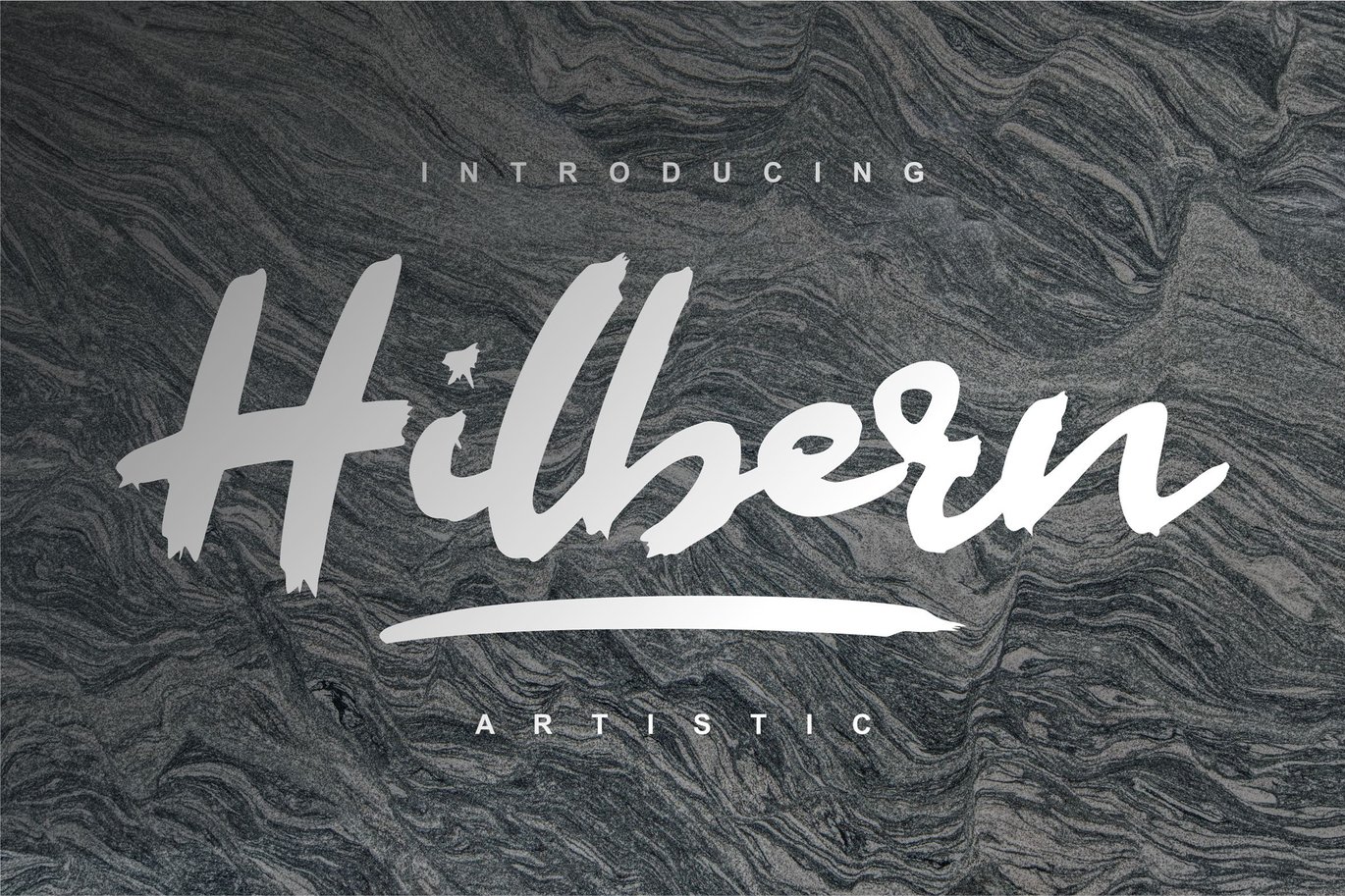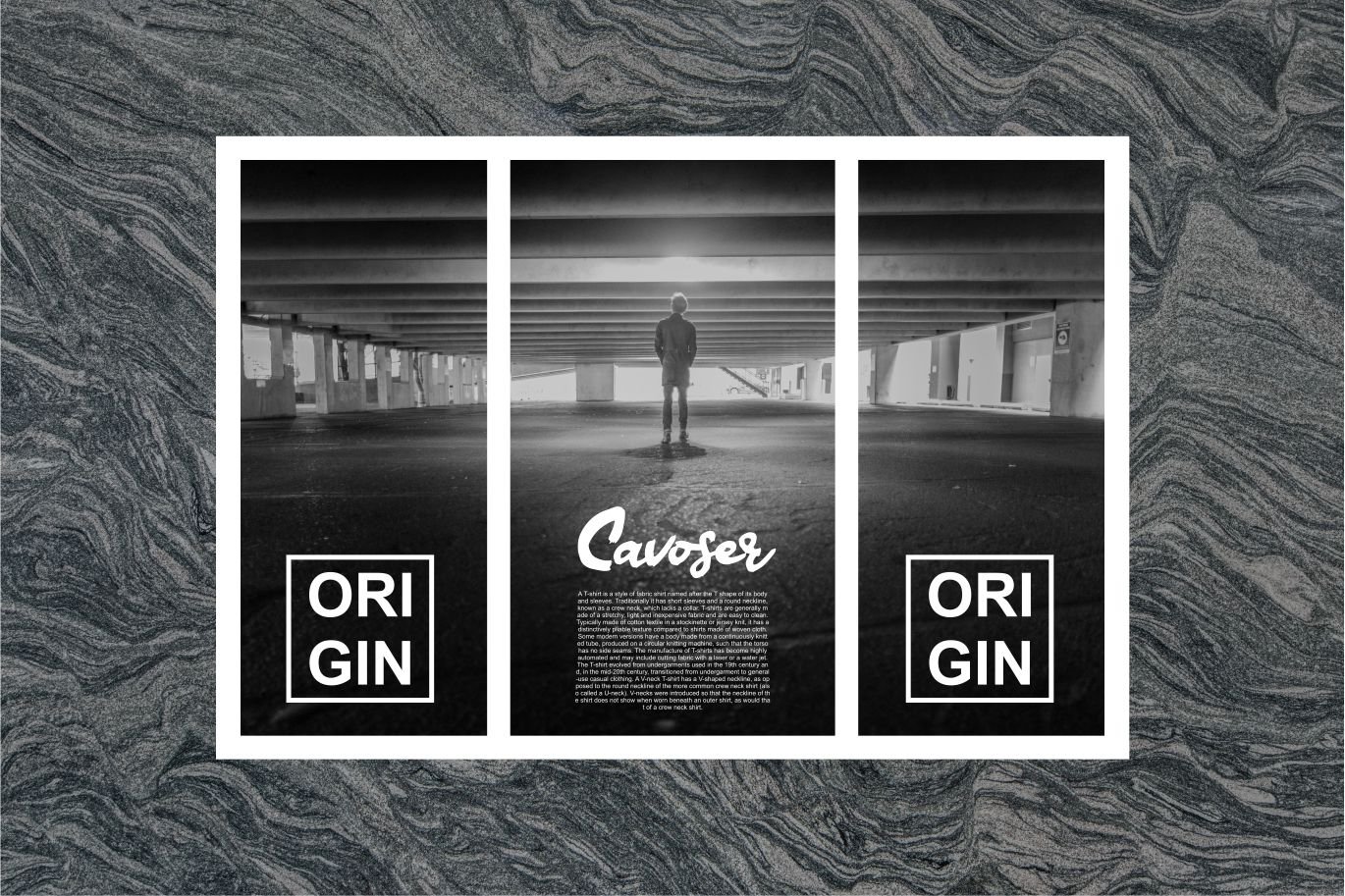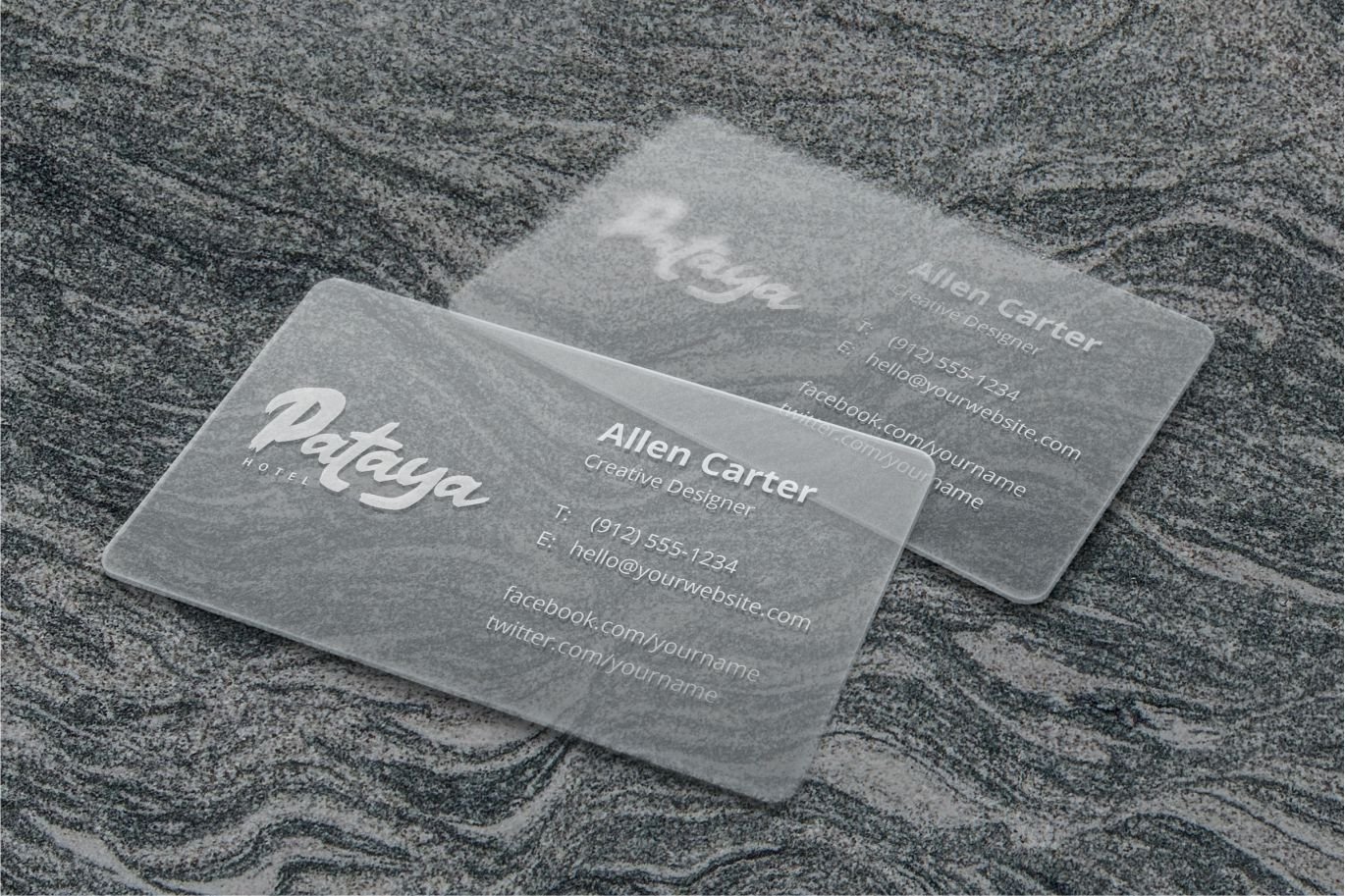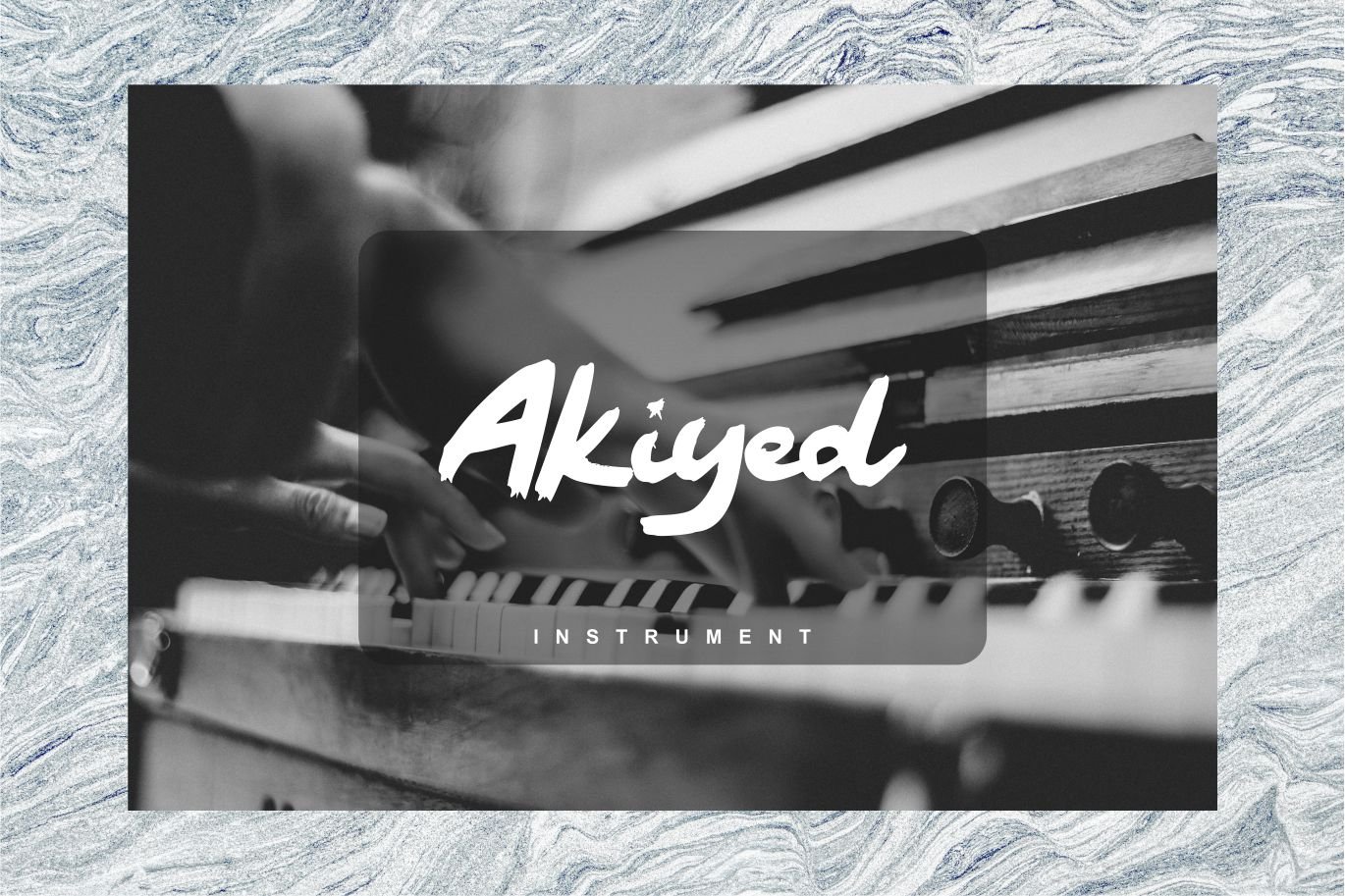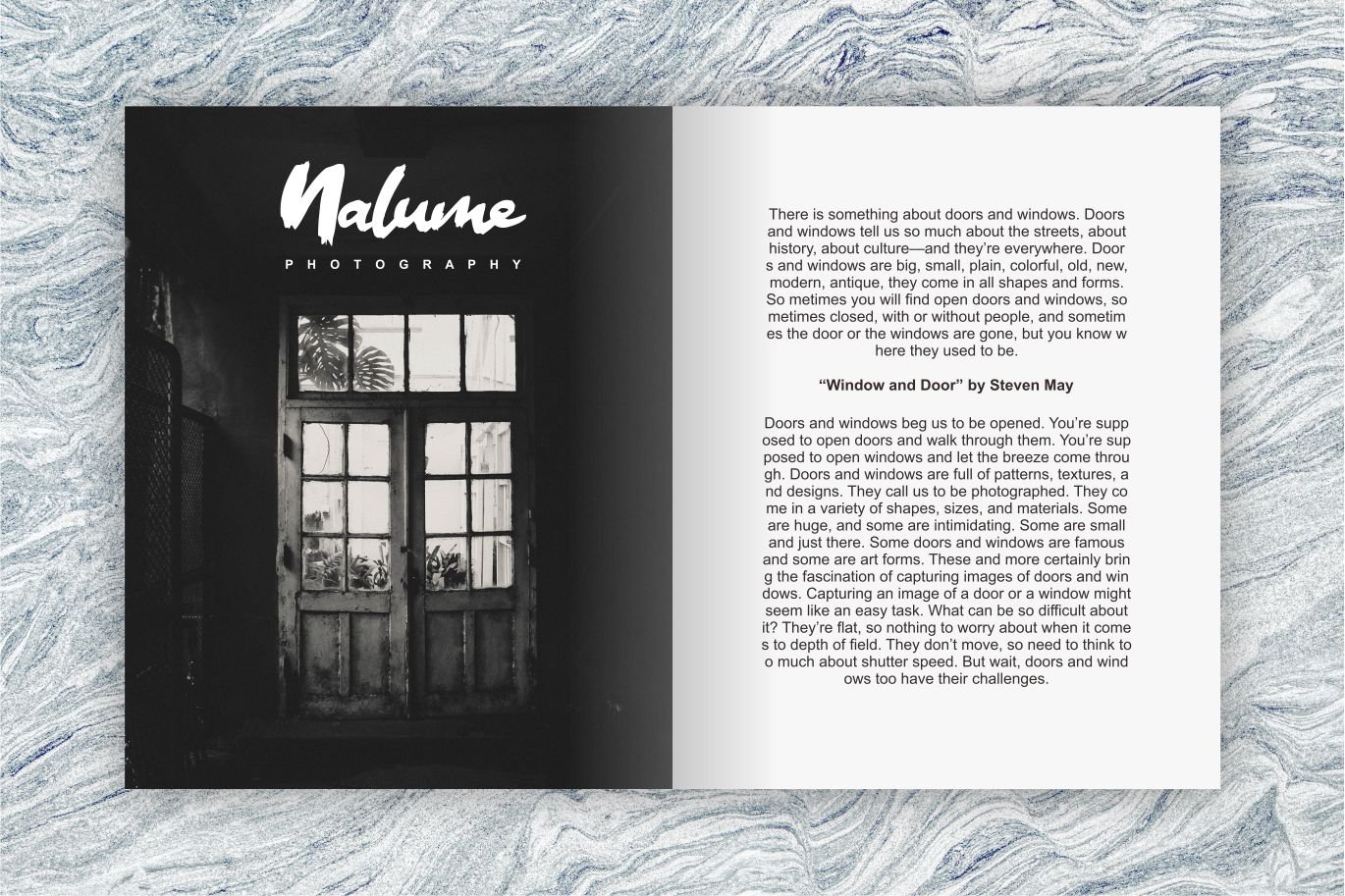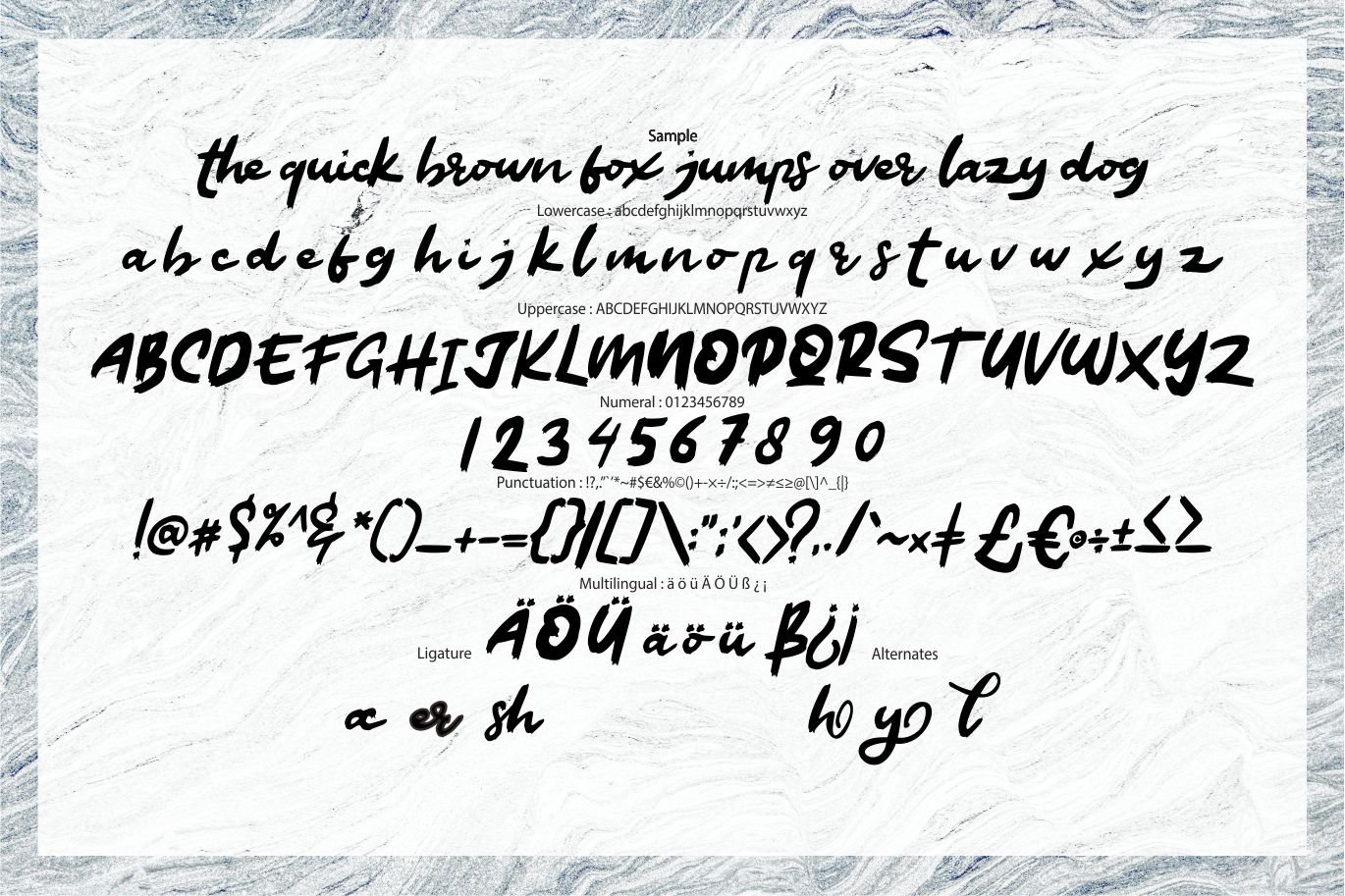
Hilbern Artistic Font
**Hilbern Artistic Font – is a new font that is authentic and suitable for many of your visual needs, like for invitation, greeting cards, branding materials, business cards, quotes, posters, and more!
- special character for Alternates and Ligatures